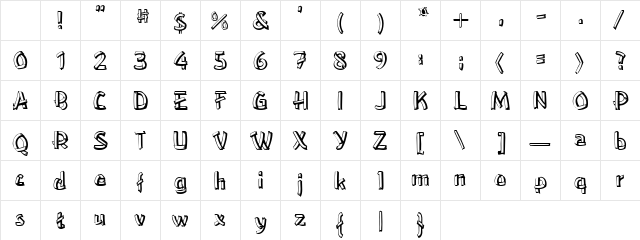
Complete PT Masking Tape Normal glyph index. Displaying only characters natively supported by PT Masking Tape Normal font.
PT Masking Tape is a composed and adaptable typeface that performs quietly and consistently across a wide range of design contexts.